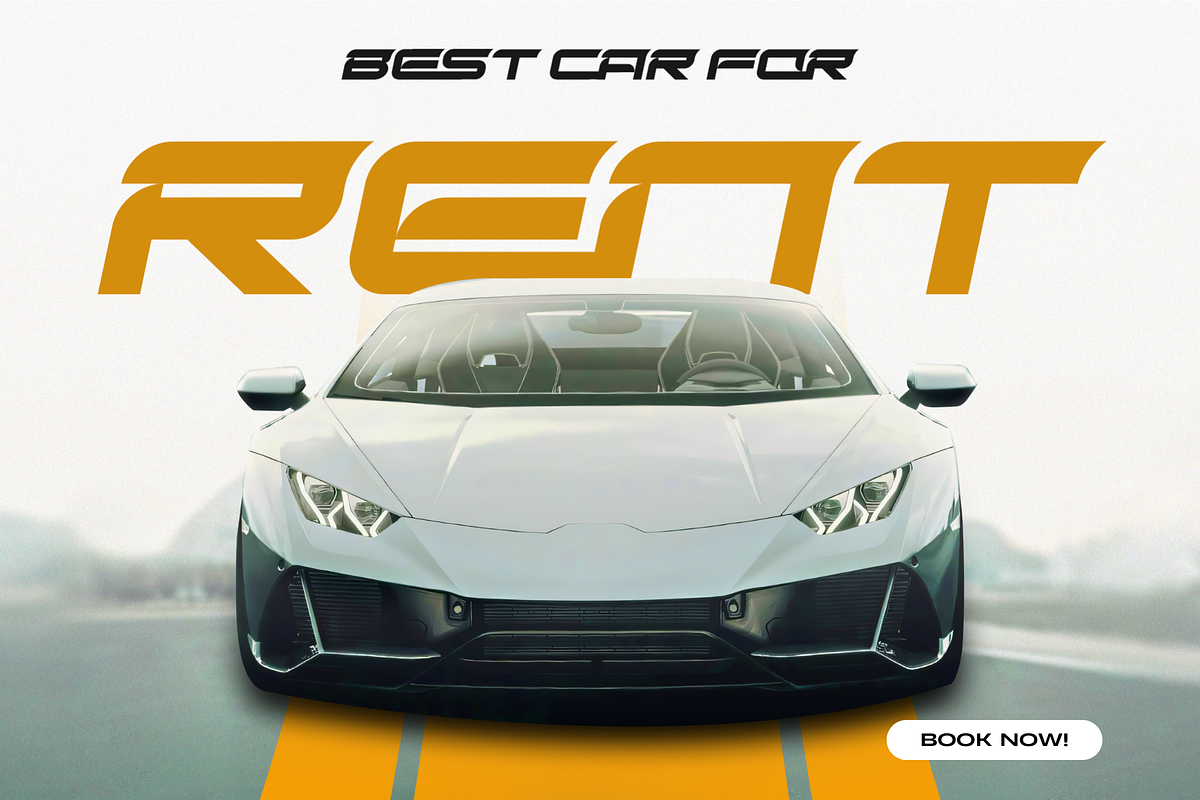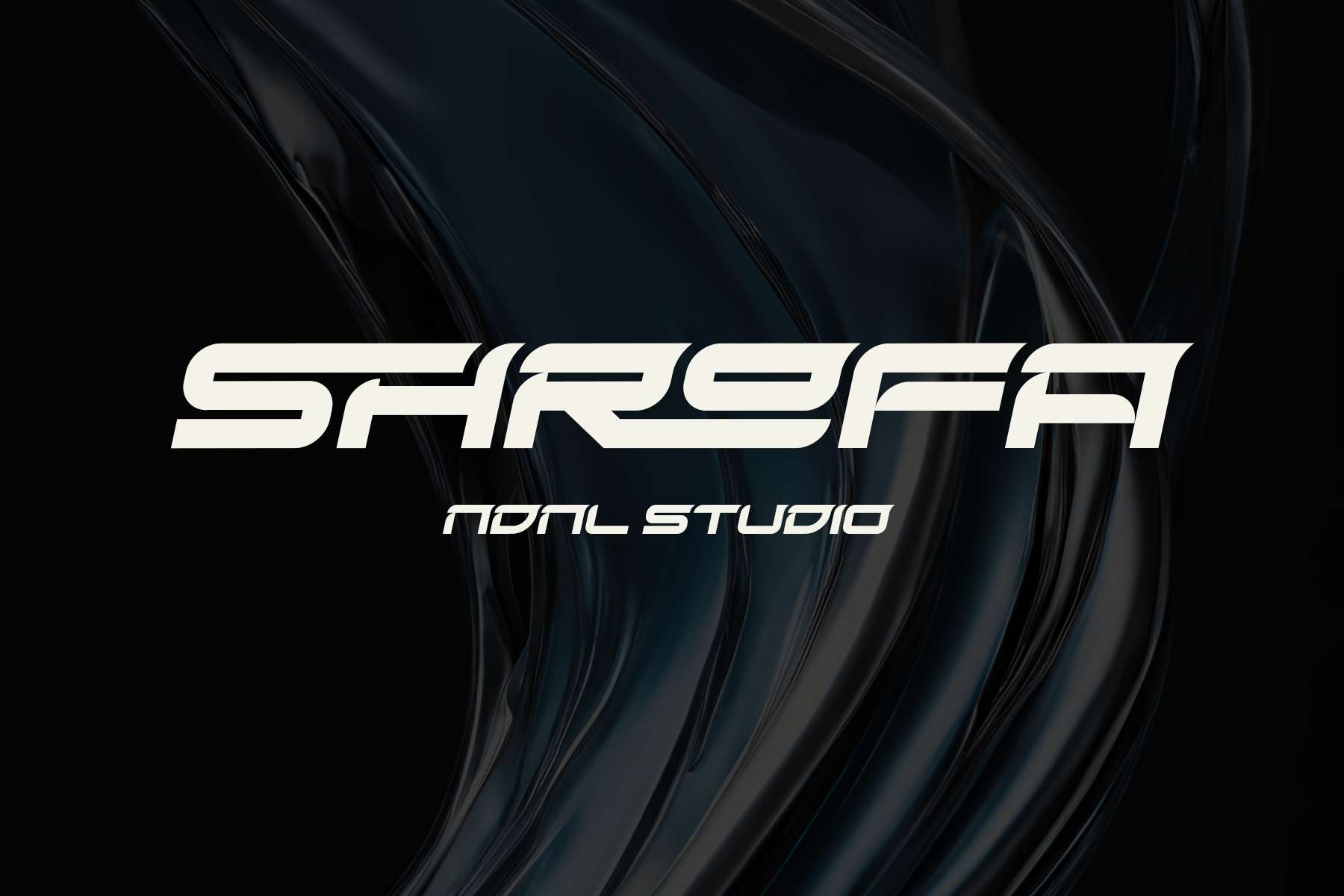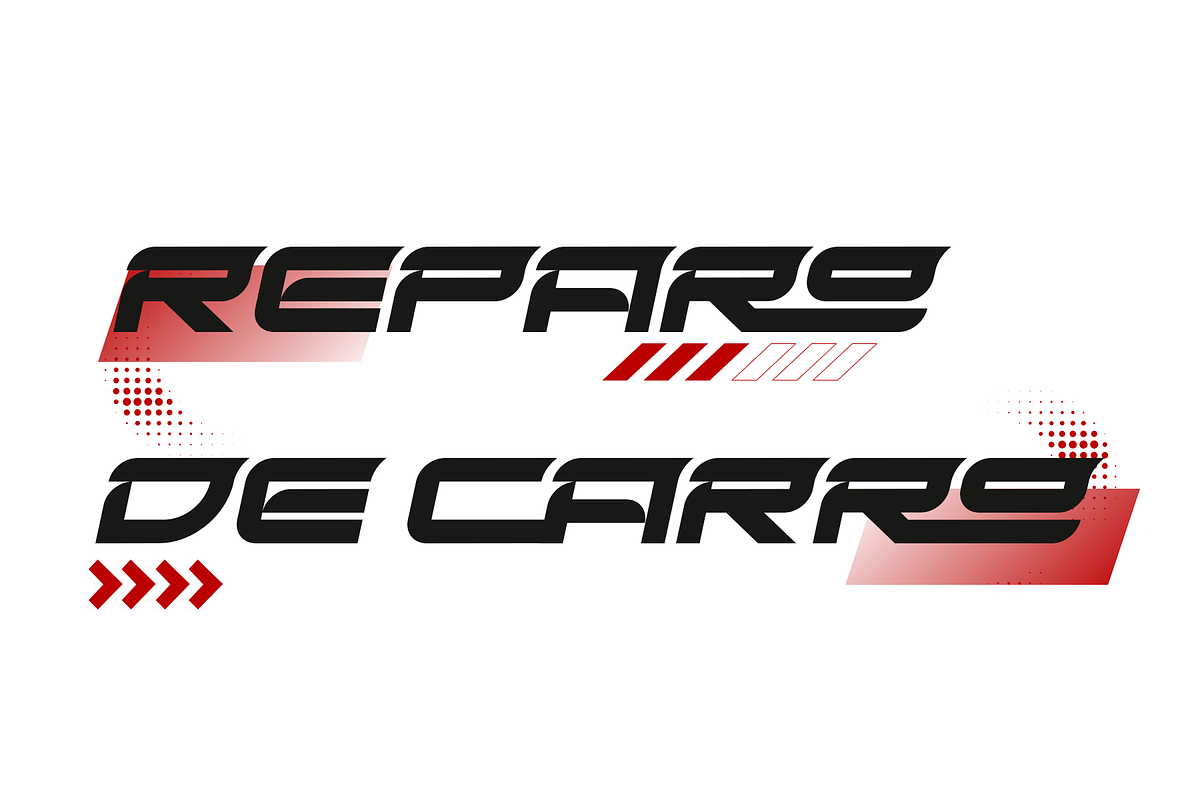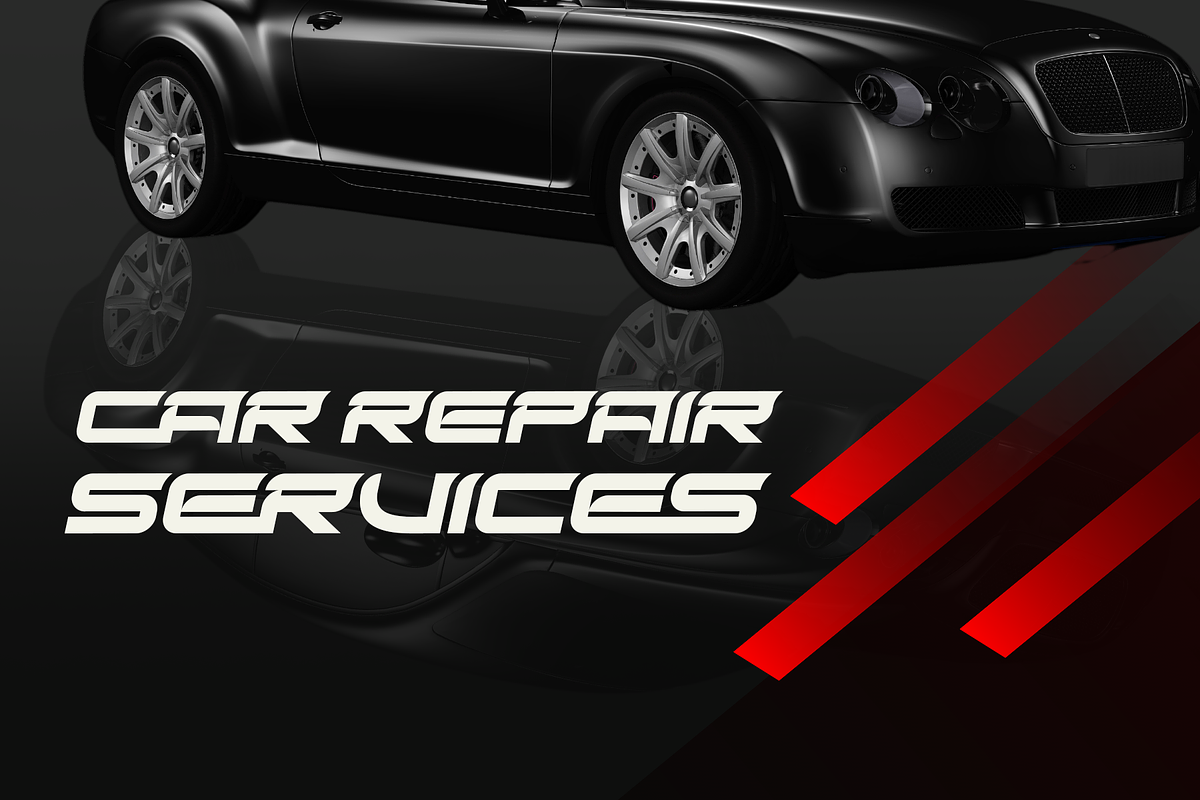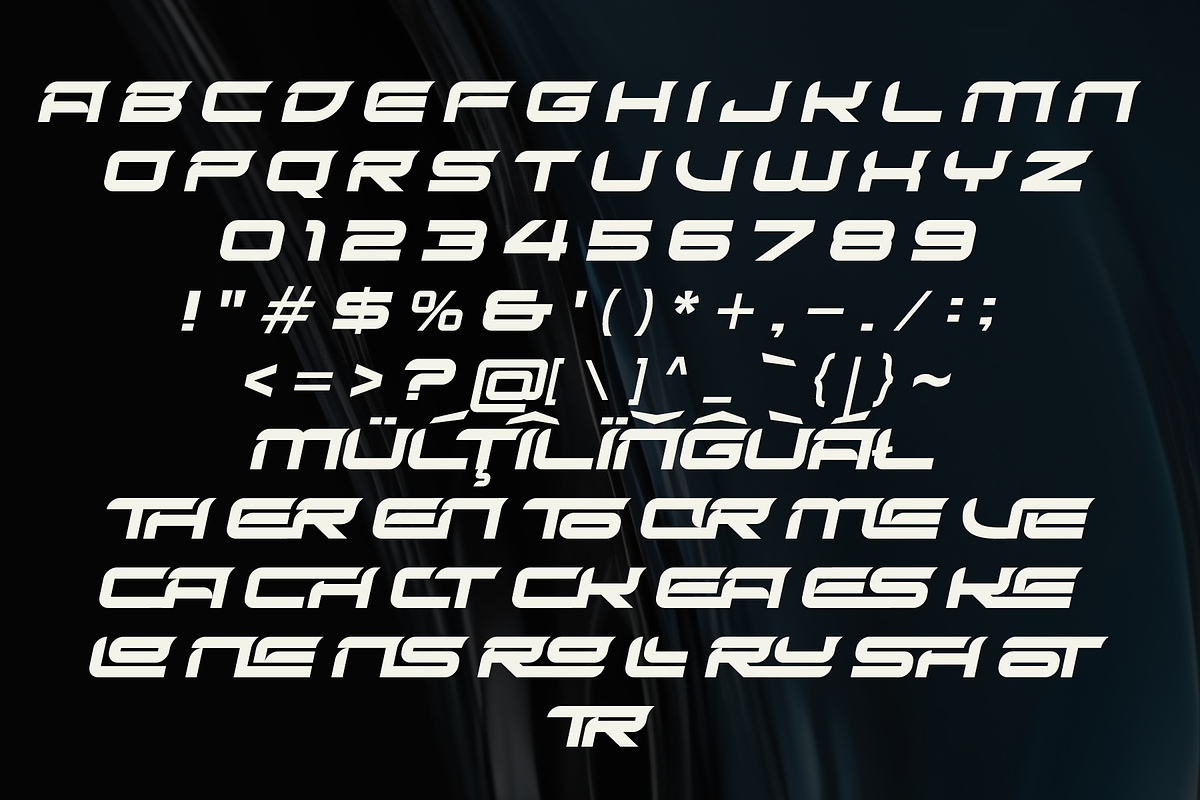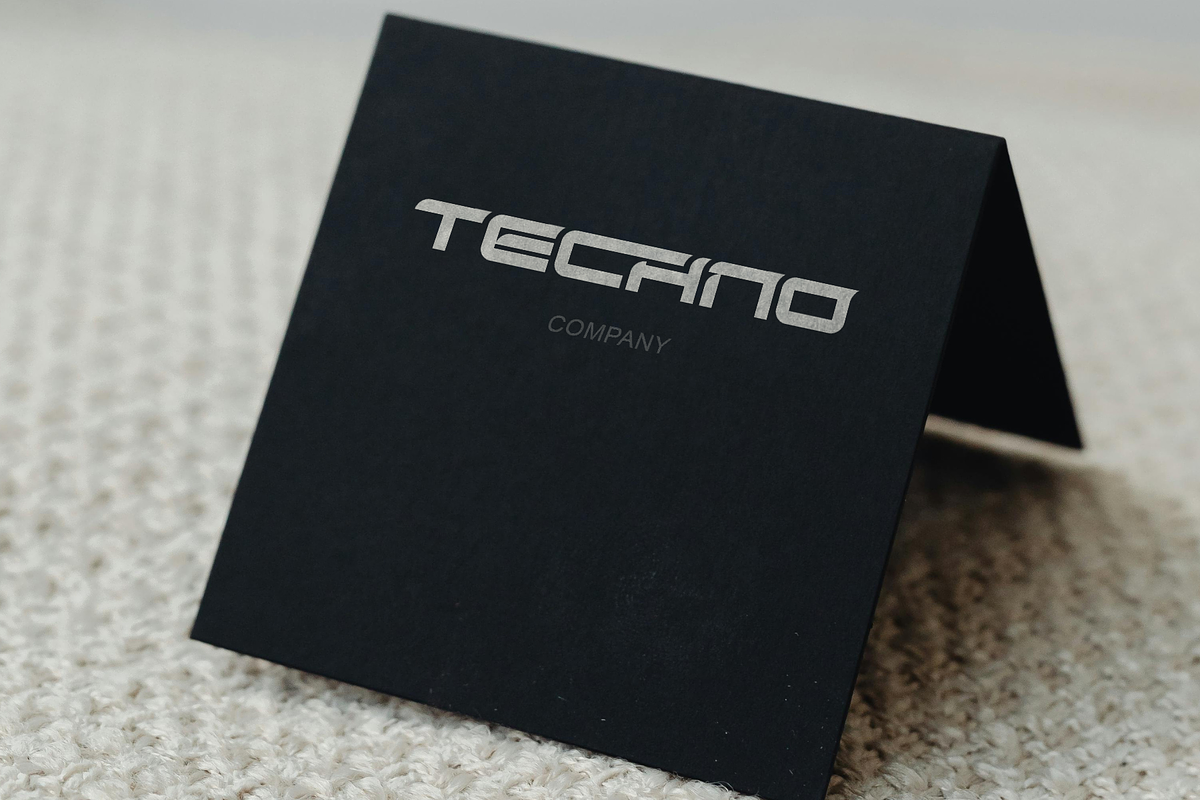
Shrofa – Display Font
Shrofa is a futuristic display font built for bold visual impact. With its sleek geometric forms, sharp curves, and high-speed aesthetic, this typeface captures the spirit of sci-fi, racing culture, cyberpunk visuals, and modern technology. Designed to stand out, Shrofa delivers a strong and dynamic presence perfect for headlines, logos, gaming projects, posters, branding, automotive themes, and digital designs.
\- Character set A-Z
\- Uppercase & Lowercase
\- Numerals & Punctuation
\- Accented Characters (West Europe)